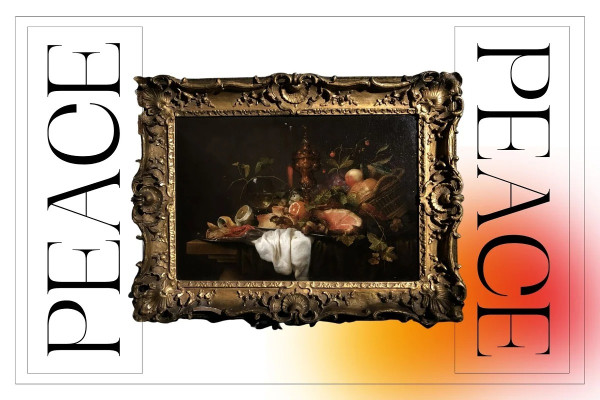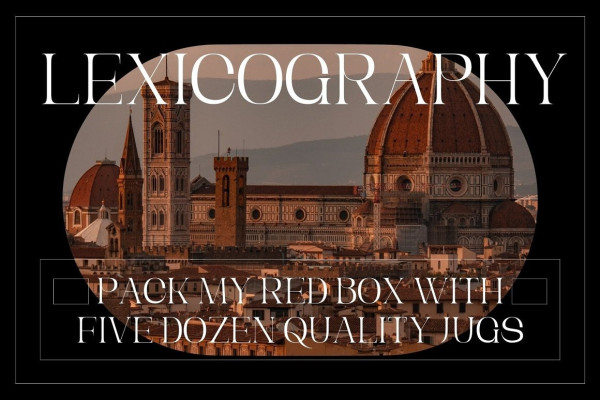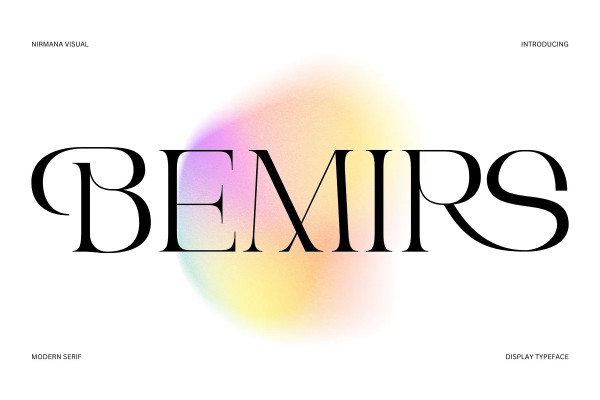
Bemirs Font
Bemirs Font, offers beautiful typographic harmony for a diversity of design projects, including logos & branding, social media posts, advertisements & product designs.